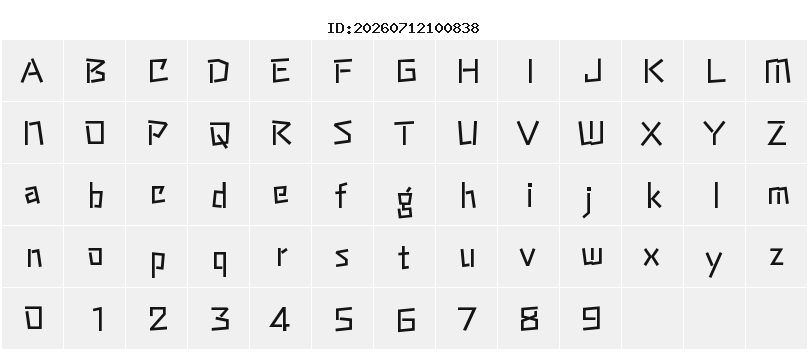
• Font Name: 游趣体 简
• Font ID: Child Fun Sans ZHS:Version 0.410
• Full Font Name: Child Fun Sans ZHS
• Version: Version 0.410
• PostScript Name: ChildFunSans-ZHS
• Character Count: 9238
• Designer: Des-Magmeta, Fontworks Inc.
• Manufacturer: Des-Magmeta, Fontworks Inc.
About 游趣体 简.ttf
游趣体 简.ttf is a modern, elegant sans-serif font designed for ultimate readability and visual harmony. Perfect for branding, headlines, web design, and print materials.